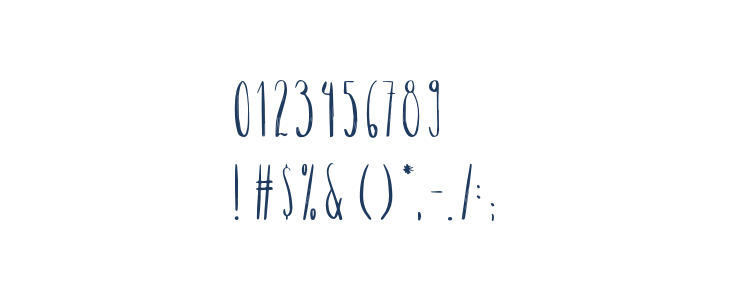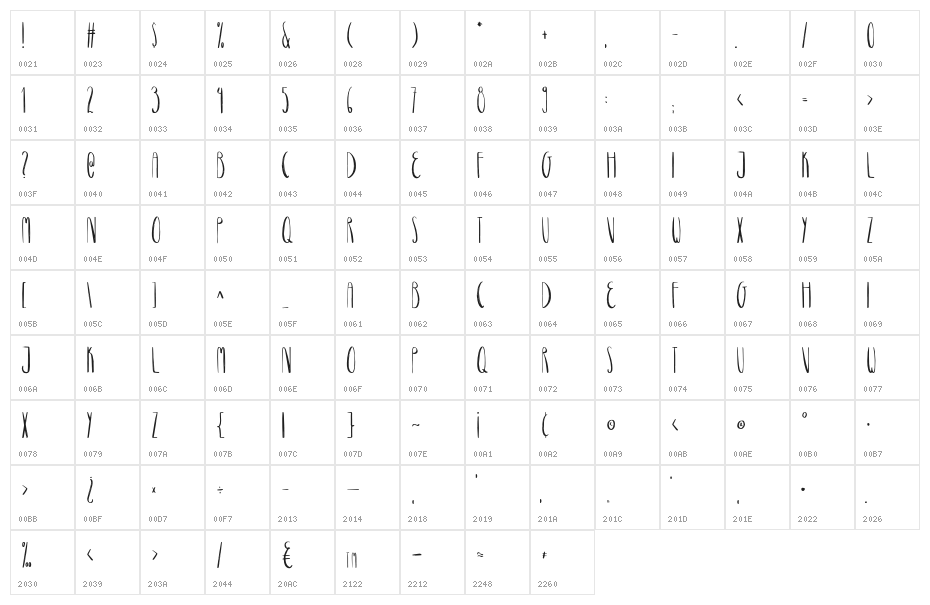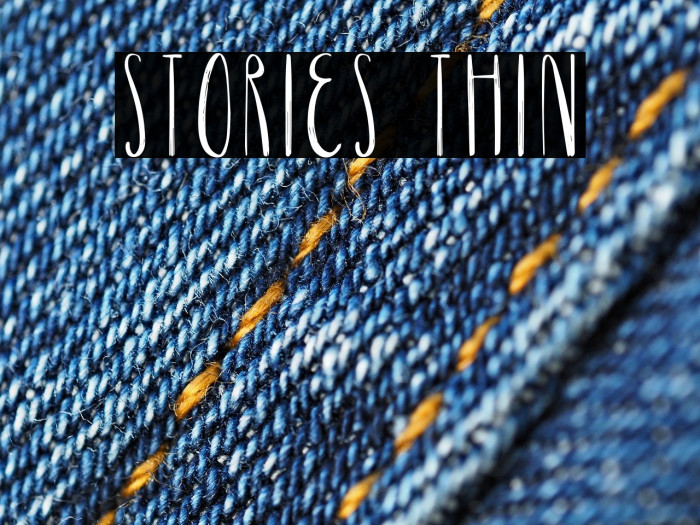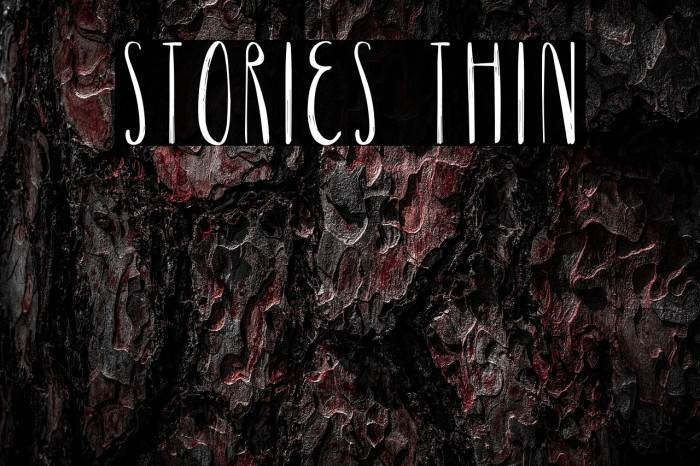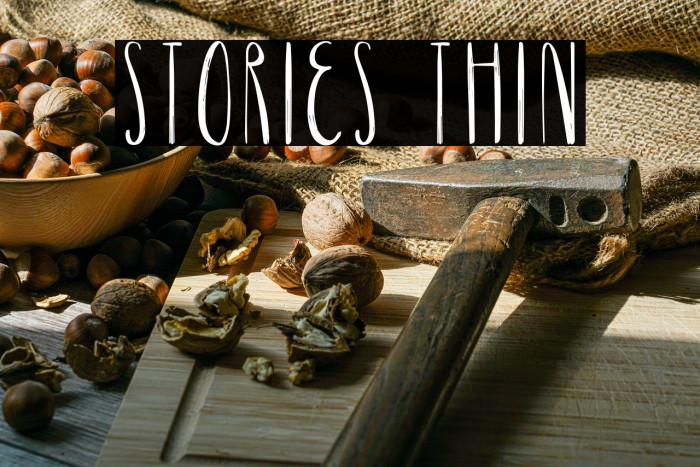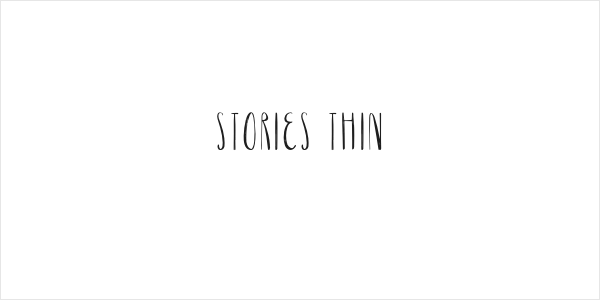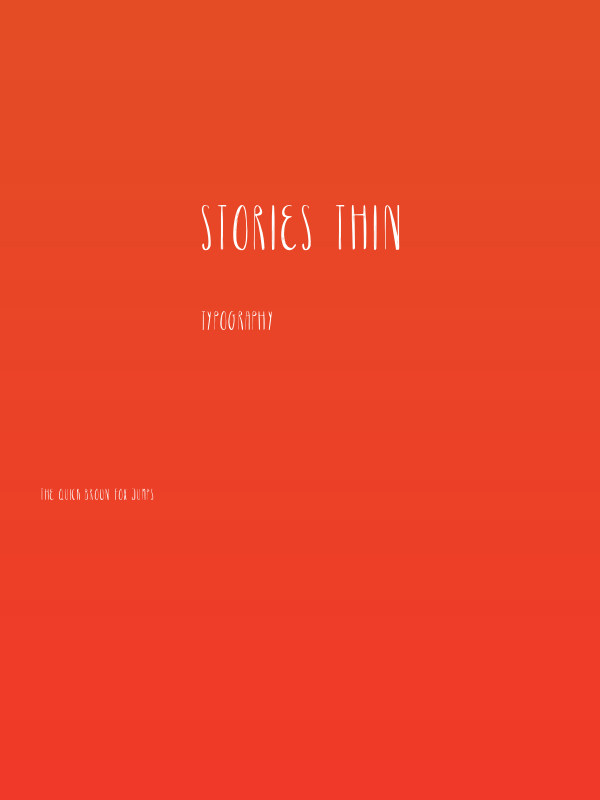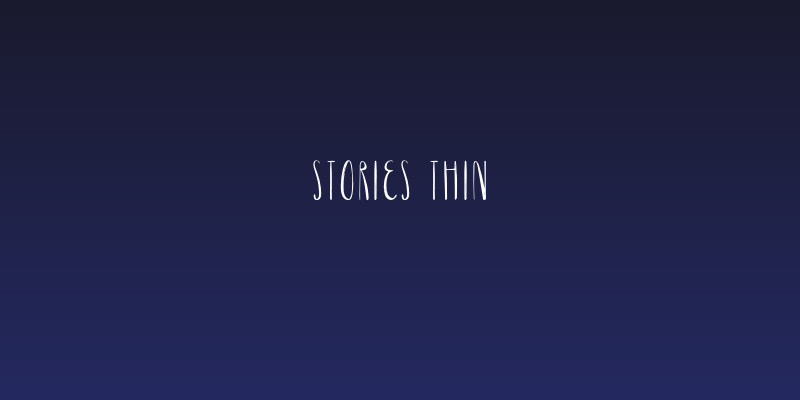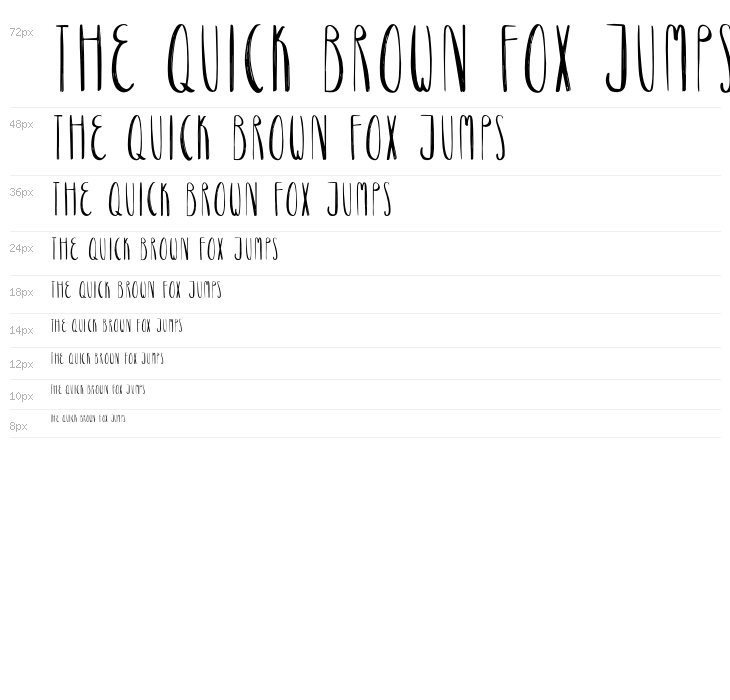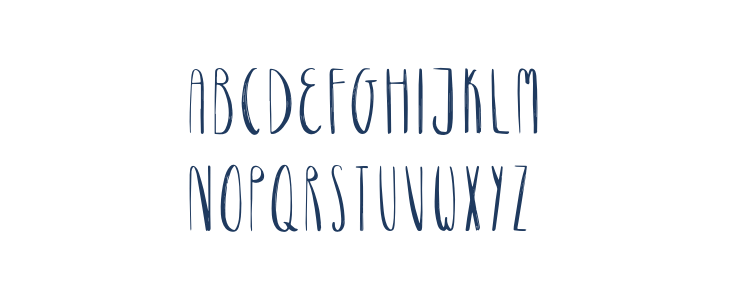
Stories Thin Font
Stories Thin Description
This font features a unique, hand-drawn style with elongated, narrow characters that give it a whimsical and artistic appearance. The strokes are uneven, adding a playful and informal touch, while maintaining legibility. The uppercase and lowercase letters are consistent in their slender form, with a slight variation in stroke width that adds character without compromising readability. The numerals and special characters follow the same design principles, ensuring a cohesive look across all text elements. This font's distinct style makes it suitable for creative projects that require a touch of individuality and flair.
| Proposed Projects | Ideal for children's book covers, creative posters, artistic branding, and playful invitations. |